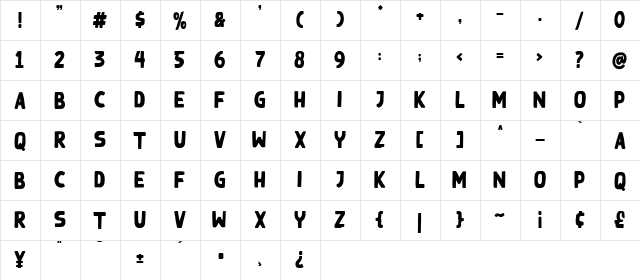
Black Ground Regular
Design Context for Black Ground Typeface
Black Ground uses gentle rounded endings to create a warm, inviting typographic personality — less corporate than geometric sans, more refined than playful display fonts.
A natural fit for tech startups, health and wellness brands, children's products, and friendly consumer apps.
Font Pairing: Pairs well with a rounded or humanist sans for body copy, maintaining the friendly tone without relying on Black Ground to carry extended reading.
Pro Tip: Pair Black Ground with a geometric sans for a balanced system — the rounded softness works as a warm counterpoint to harder-edged companions.